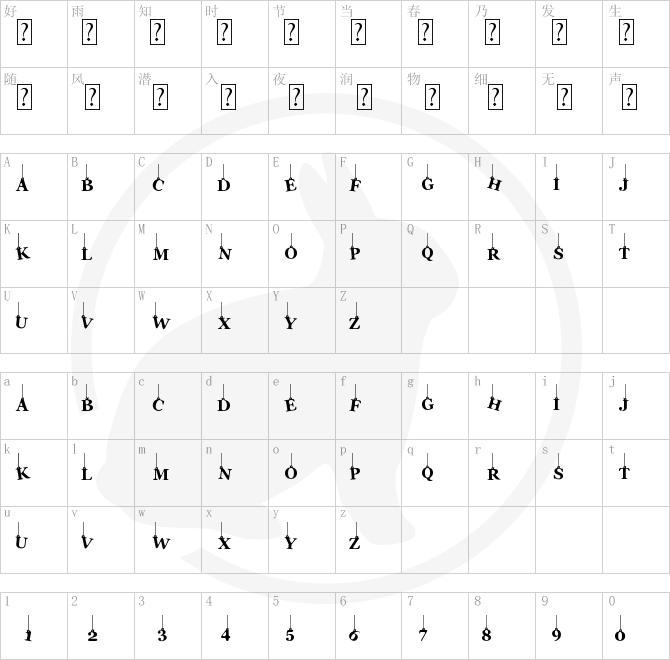
- Font Name:Lady Fiesta
Lady-Fiesta.ttf is a very beautiful artistic font, Lady-Fiesta.ttf is widely used in the design and printing of various books and pictures,Lady-Fiesta.ttf has a strong visual impact,Lady-Fiesta.ttf is a commonly used font in newspapers, magazines and books, and is used in posters, e-commerce Poster design, store design, logo design, font design and other fields.Lady-Fiesta.